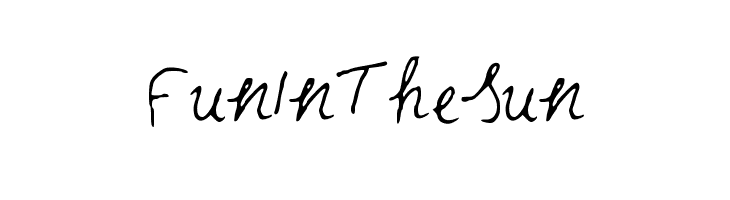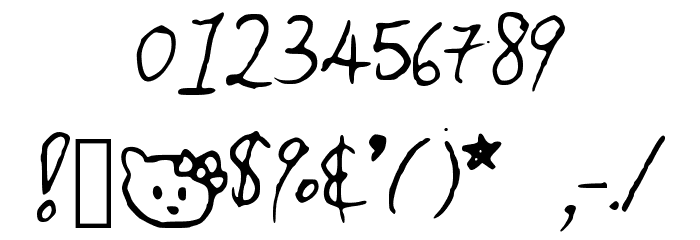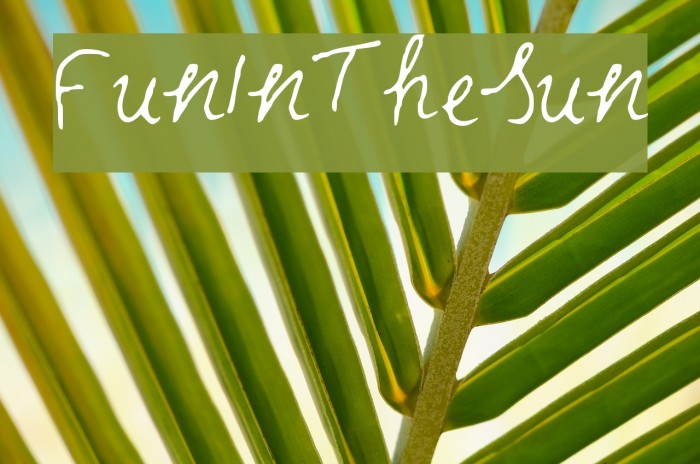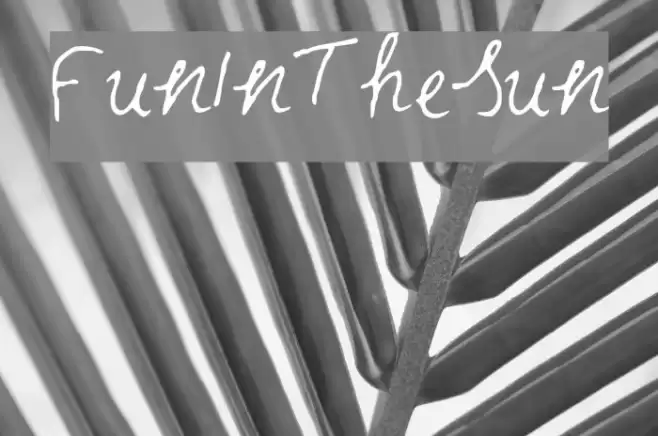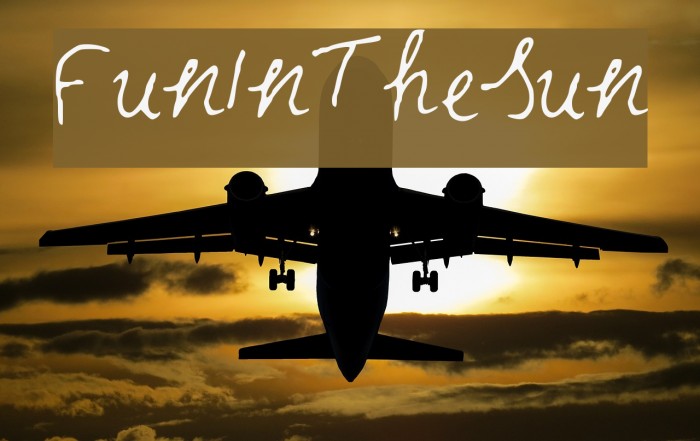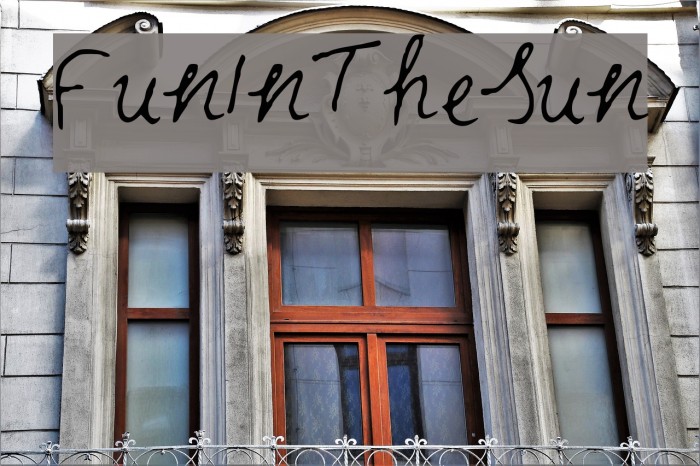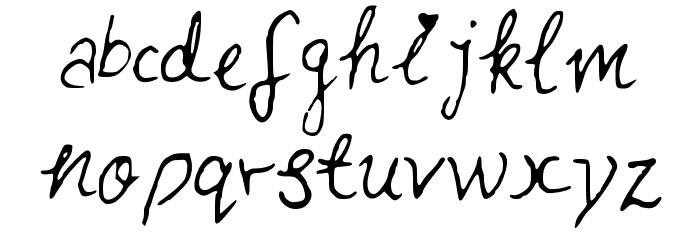
FunInTheSun Font
FunInTheSun Description
This font exudes a playful and whimsical charm, characterized by its handwritten style that mimics the fluidity and spontaneity of casual script. The letters are slightly slanted, with varying stroke widths that add a dynamic and lively feel. Each character is uniquely crafted, giving the font a personal and informal touch. The uppercase letters maintain a consistent height, while the lowercase letters exhibit a more varied baseline, enhancing the font's organic appearance. The numerals and special characters follow the same playful aesthetic, making this font ideal for projects that require a touch of fun and creativity.
| Overall Style | Playful |
| Use Case | Headlines, Logos, Creative projects |
| Proposed Projects | Ideal for greeting cards, children's books, playful branding, and creative social media graphics. |